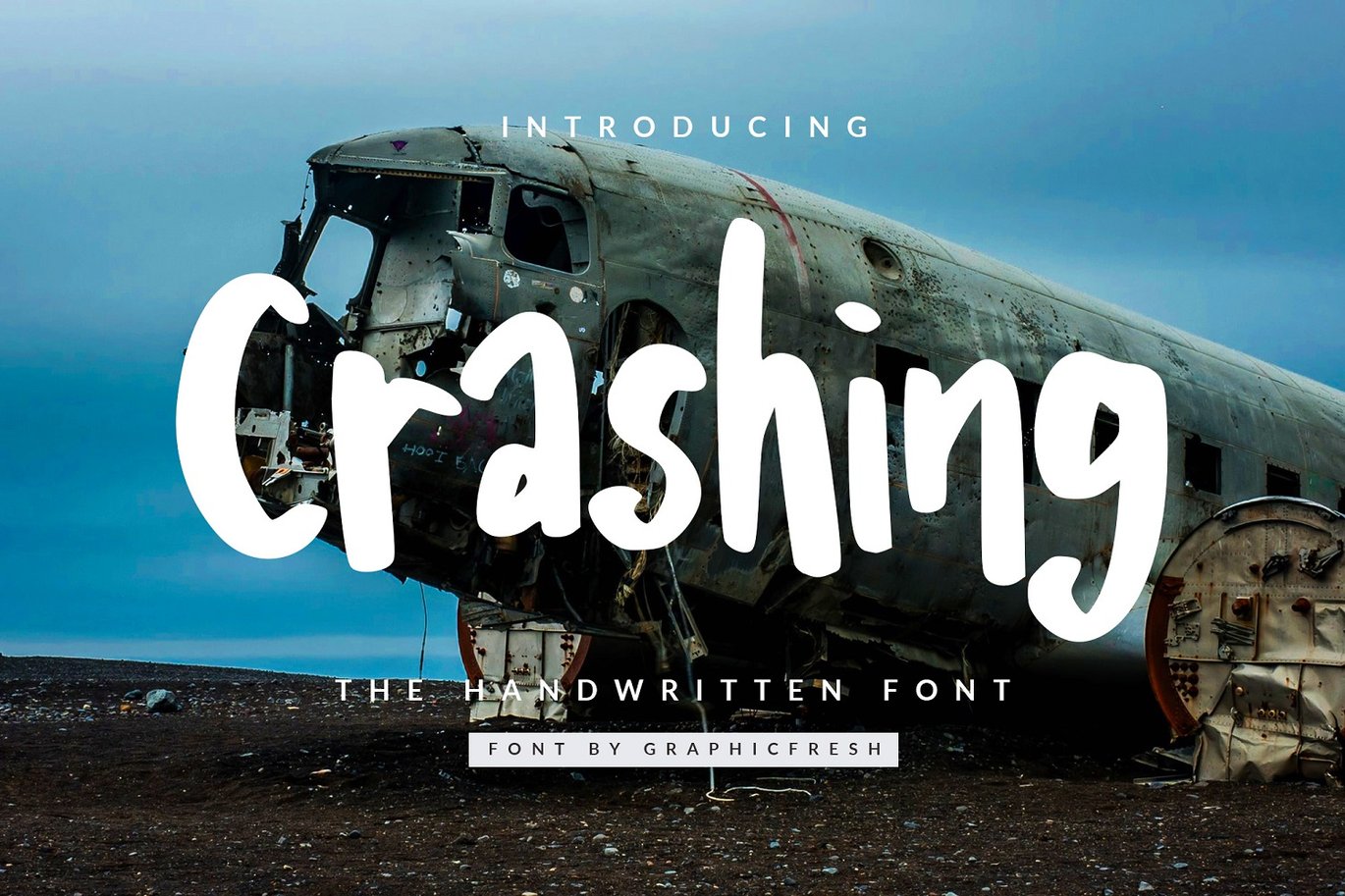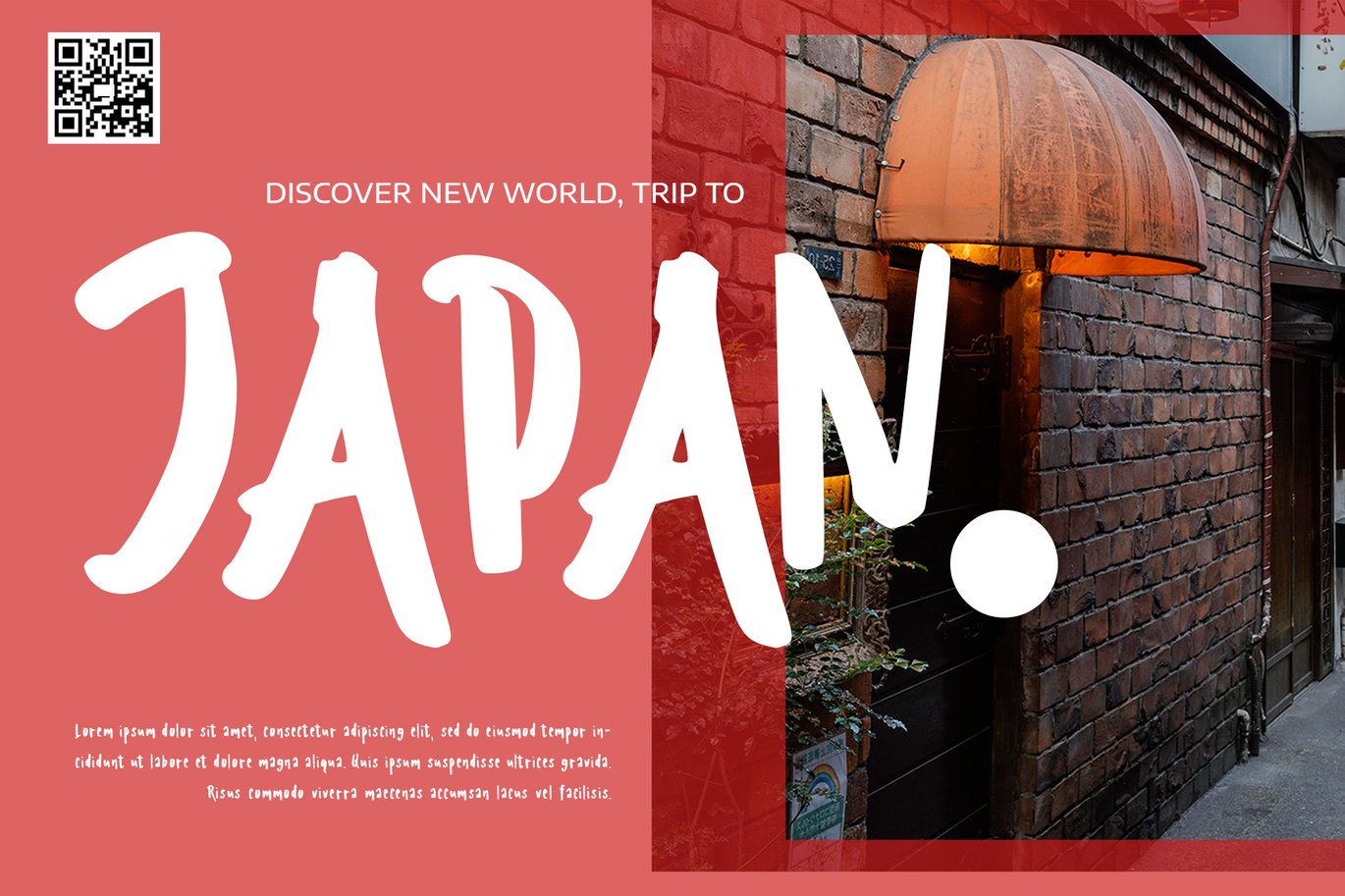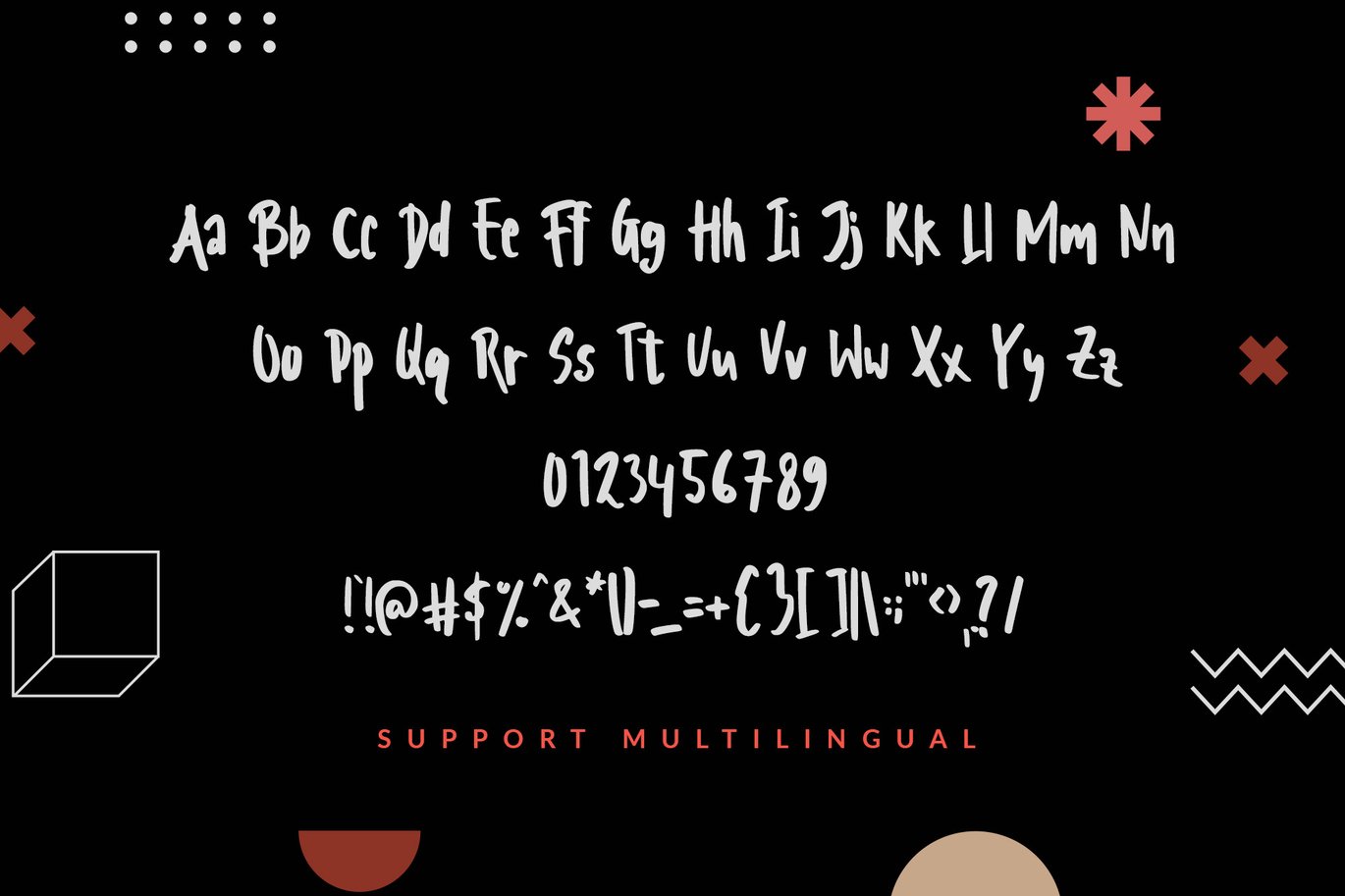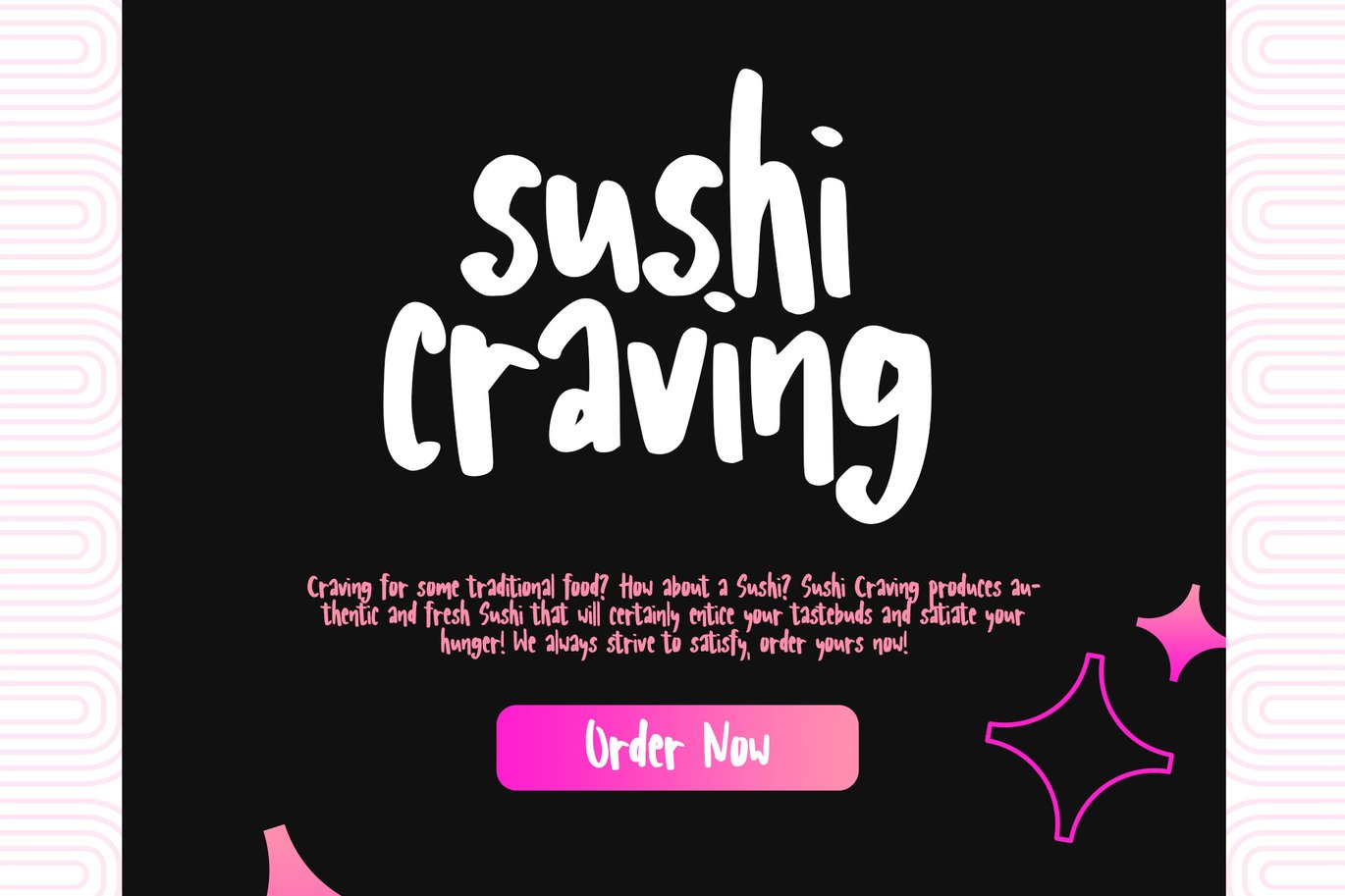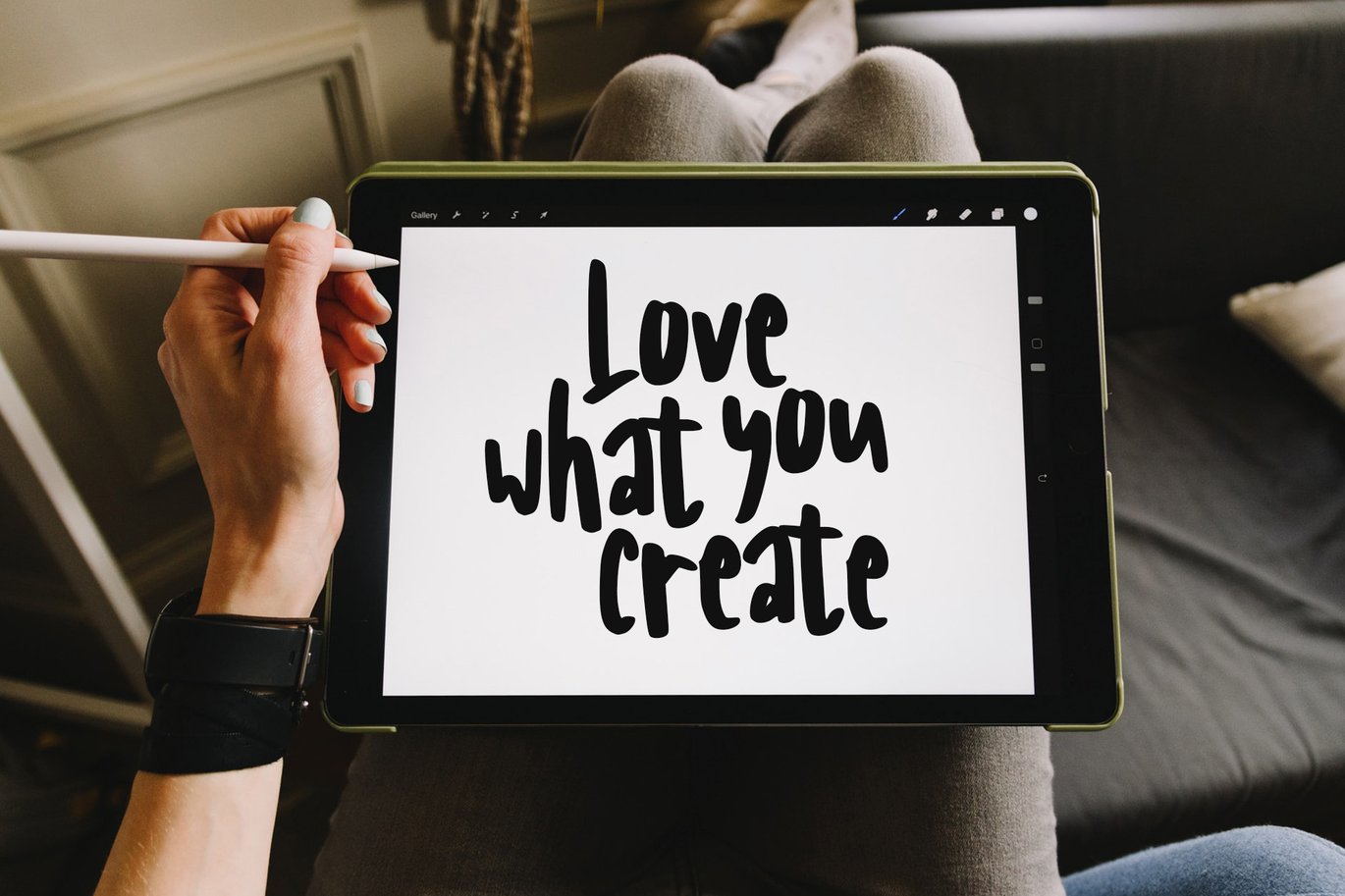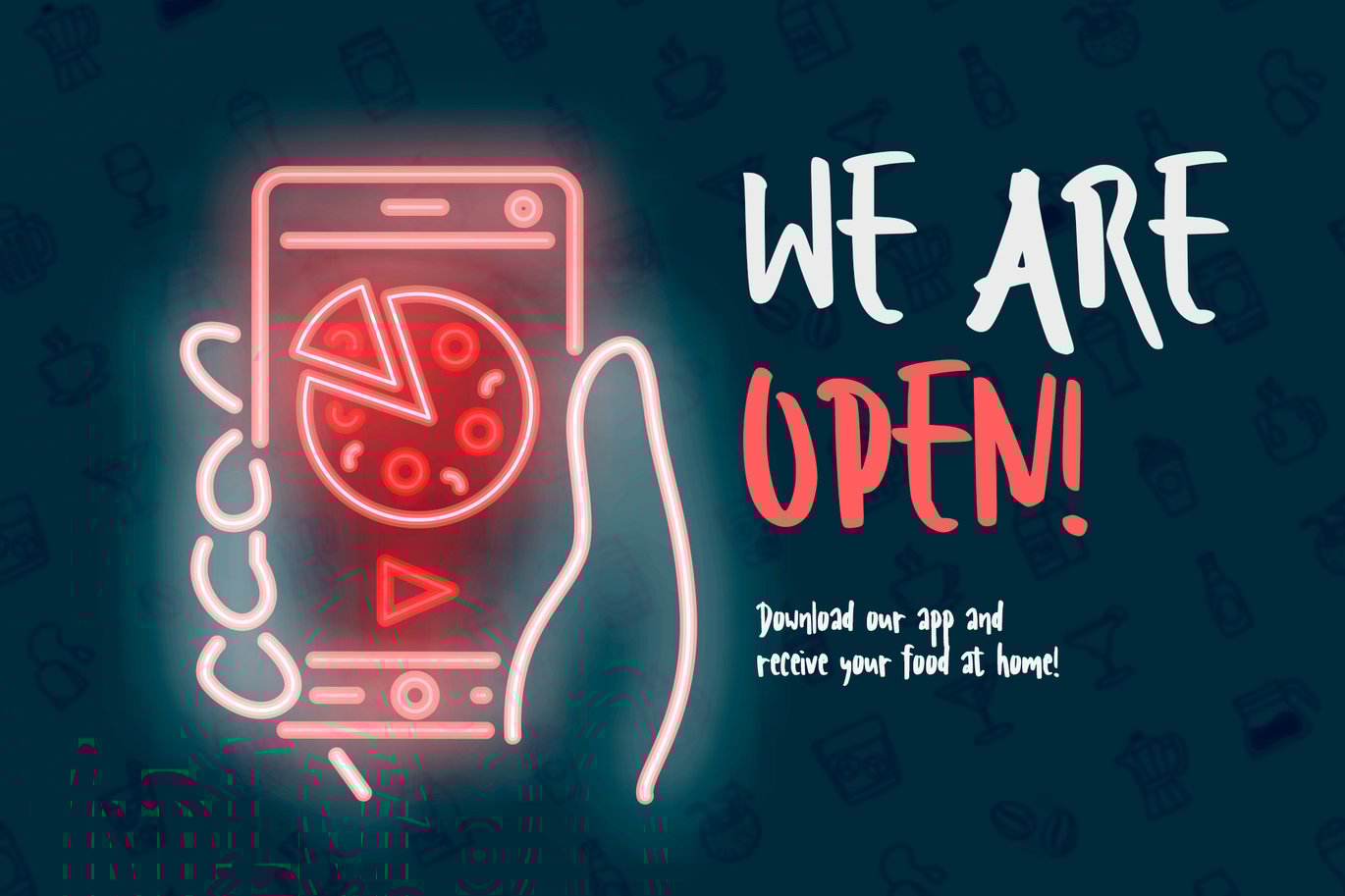
Crashing – The Handwriting Font
Crashing – The Handwriting Font, every single letter has been carefully crafted to make your text looks beautiful. it’s perfect for logos, name cards, magazine layouts, invitations, headers, or even large-scale artwork.